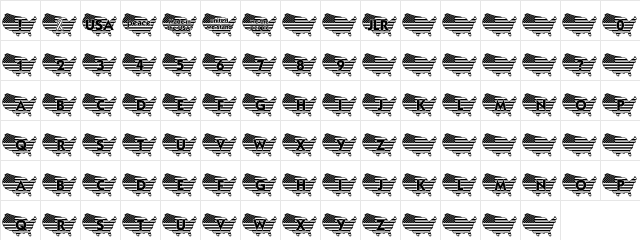
JLR God Bless the USA LSF Regular
Design Context for JLR God Bless the USA LSF Typeface
JLR God Bless the USA LSF is a composed and adaptable typeface that performs quietly and consistently across a wide range of design contexts.